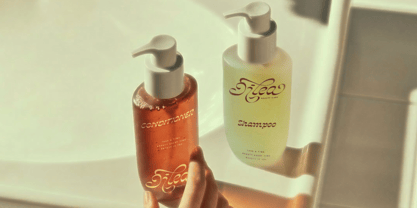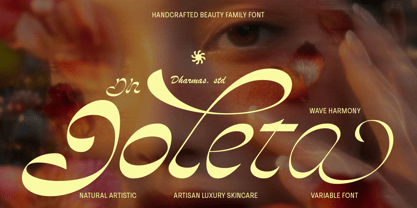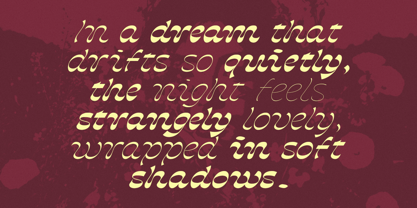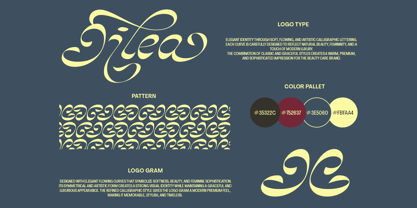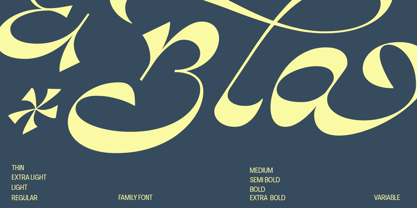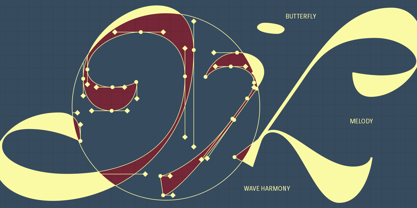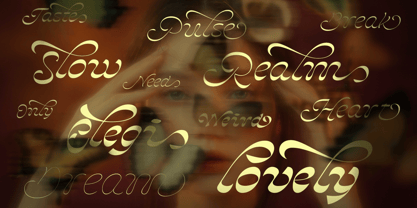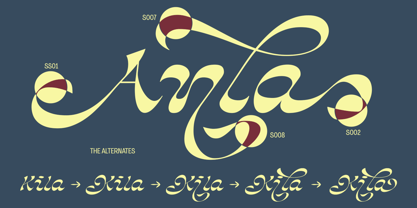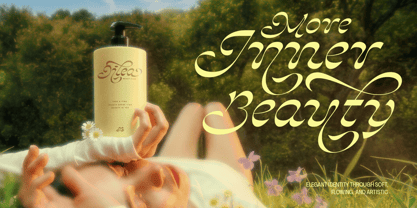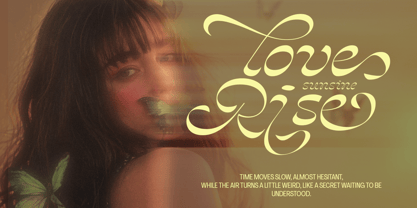
Dh Joleta is a handcrafted luxury beauty font family inspired by soft femininity, flowing butterfly wings, and elegant artistic calligraphy. Designed with graceful curves, expressive swashes, and refined high-contrast strokes, this typeface creates a dreamy and sophisticated atmosphere that feels both modern and timeless.
This family includes 8 styles: Thin, Extra Light, Light, Regular, Medium, Semi Bold, Bold, and Extra Bold, giving you flexibility for both delicate layouts and bold luxury headlines. Dh Joleta also comes with 70+ beauty alternates, multilingual support, a Variable Font, and a Type Specimen PDF for elegant and versatile typography exploration.
Perfect for beauty branding, skincare packaging, fashion editorials, perfume labels, invitations, boutique identities, and feminine social media designs.
Dh Joleta Font Features:
• 8 Weights: Thin, Extra Light, Light, Regular, Medium, Semi Bold, Bold, Extra Bold
• 70+ Beauty Alternates
• Letters, numbers, symbols, punctuation, special alternates
Multilingual Characters available for:
Afrikaans, Albanian, Asu, Basque, Bemba, Bena, Breton, Chiga, Cornish, Dutch, English, Estonian, Filipino, Finnish, Friulian, Galician, German, Gusii, Indonesian, Irish, Italian, Kabuverdianu, Kalenjin, Kinyarwanda, Luo, Luxembourgish, Luyia, Machame, Makhuwa-Meetto, Makonde, Malagasy, Manx, Morisyen, North Ndebele, Nyankole, Oromo, Portuguese, Quechua, Romansh, Rombo, Rundi, Rwa, Samburu, Sango, Sangu, Scottish Gaelic, Sena, Shambala, Shona, Soga, Somali, Spanish, Swahili, Swedish, Swiss.